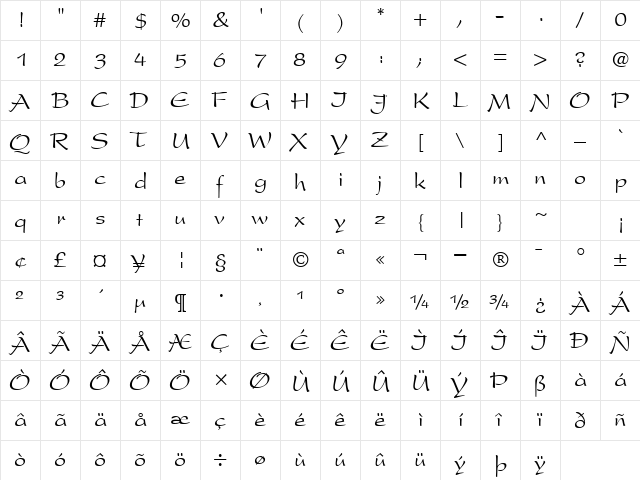
GE Clipper Script Normal
Design Context for GE Clipper Script Typeface
GE Clipper Script flows with the natural rhythm of handwritten lettering, making it ideal for designs that call for warmth and personal expression.
Font Pairing: Combine GE Clipper Script with a simple geometric sans for maximum contrast — the tension between flowing curves and clean structure is a classic typographic pairing.
Pro Tip: Pair GE Clipper Script with a clean sans-serif for supporting text. The contrast between fluid script and geometric structure creates an elegant typographic hierarchy.